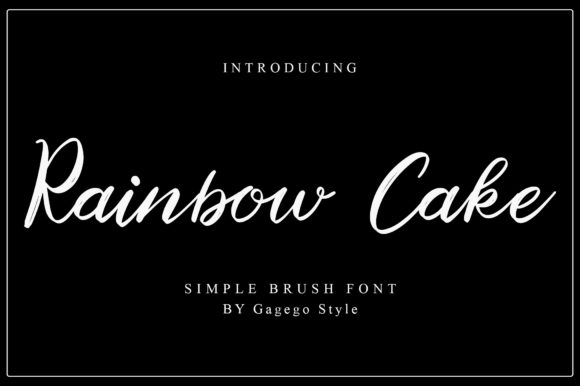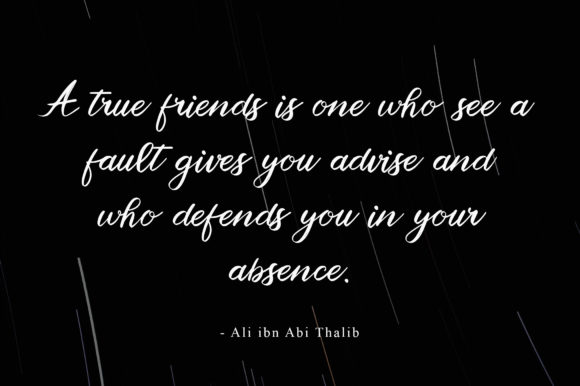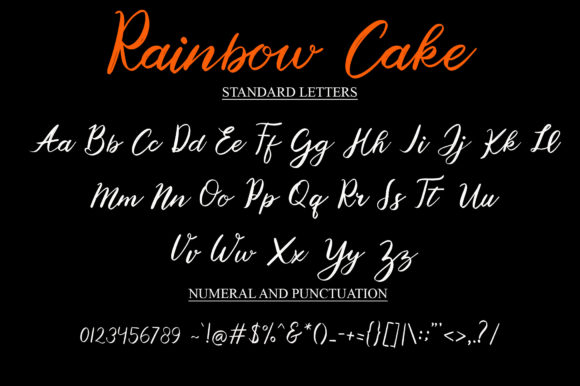
About Rainbow Cake Font
Rainbow Cake is a dazzling script font. This font is neatly crafted and highly detailed.
Whatever the topic, this font will be a wonderful asset to your font library, as it has the potential to enhance any creation.